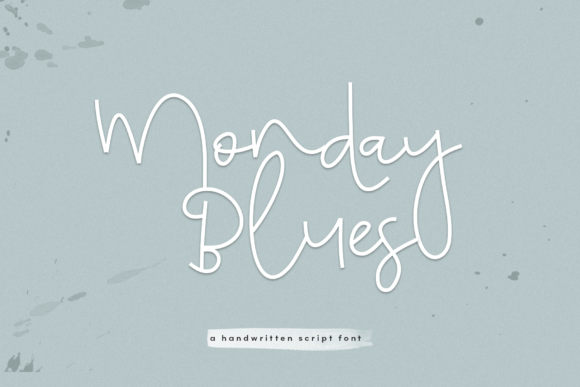
Dive into the world of Monday Blues Font, a captivating script font that exudes charm and personality. Crafted by the talented KA Designs, this font is a masterpiece that transforms your creative visions into breathtaking works of art. Monday Blues' unique handwritten style adds an intimate touch to your designs, evoking a sense of authenticity and warmth.
With its graceful curves and playful strokes, Monday Blues Font dances across your designs, captivating your audience with its whimsical charm. Its delicate yet expressive nature makes it perfect for adding a personal touch to your projects, whether it's a heartfelt letter, an eye-catching poster, or an enchanting invitation.
Embrace the magic of Monday Blues Font and let your imagination run wild. Its versatility knows no bounds, allowing you to effortlessly create designs that resonate with your audience. Whether you're a seasoned designer or just starting, Monday Blues Font is your perfect companion, guiding you towards creative excellence.
Indulge in the beauty of Monday Blues Font and elevate your designs to new heights. Experience the joy of creating captivating content that leaves a lasting impression. Monday Blues Font is not just a font; it's an artistic journey that invites you to explore your creativity and unleash your inner artist.